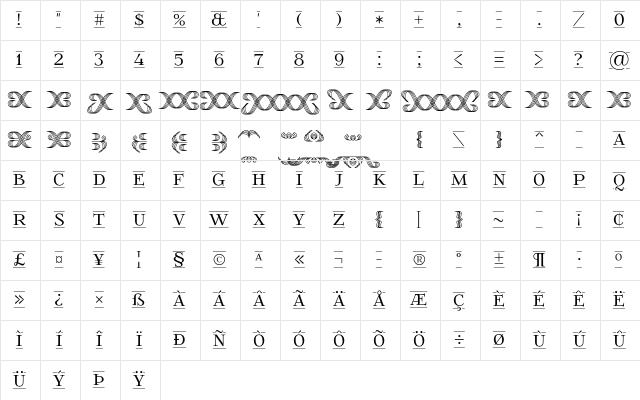
FoglihtenFr02 Regular Font Preview
FoglihtenFr02 Regular
Design Context for FoglihtenFr02 Typeface
FoglihtenFr02 takes a measured approach to typography — its balanced proportions and neutral character make it a reliable workhorse for both digital and print work.